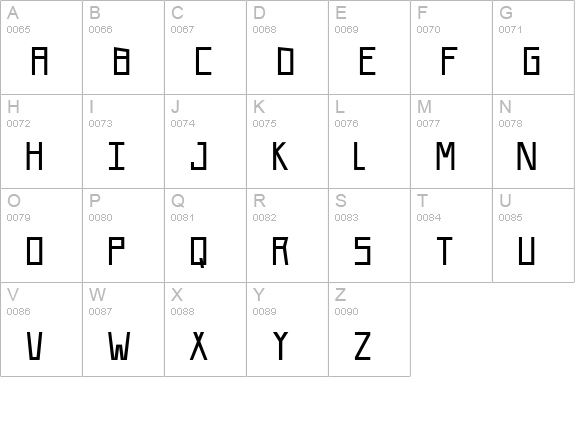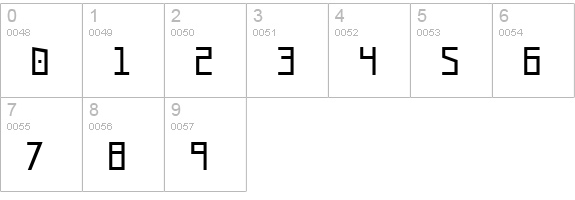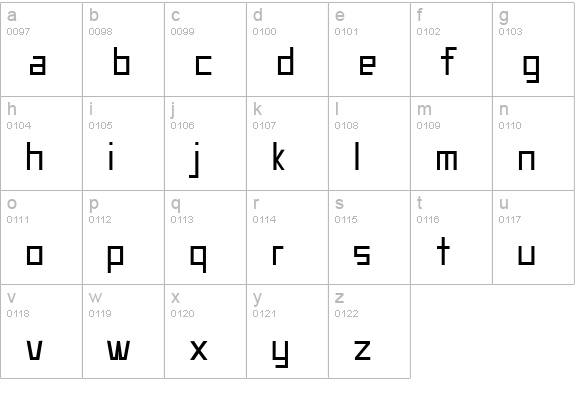
Introducing UA Squared, a breathtakingly beautiful font that exudes elegance and sophistication. Crafted with precision and attention to detail, this font is the perfect balance between modernity and timeless charm. UA Squared stands out among the crowd with its crisp and clean lines, making it ideal for a wide range of design projects. From professional presentations to eye-catching logos, this font will effortlessly elevate your creations to new heights. But what truly sets UA Squared apart is its versatility. Whether you're aiming for a minimalist aesthetic or a bold statement, this font has got you covered. Its carefully crafted letterforms ensure legibility in any size and on any medium, making it a top choice for both digital and print designs. And the best part? UA Squared is completely free! Yes, you read that right. This incredible font is freely available to download at FontsMarket.com. Now, you can enjoy the beauty and versatility of UA Squared without breaking the bank. So why wait? Enhance your designs with UA Squared today and unlock a world of creativity and style. Download it now at FontsMarket.com and let your imagination soar.